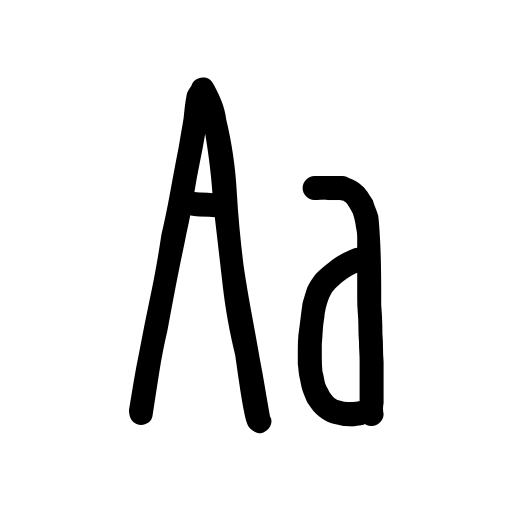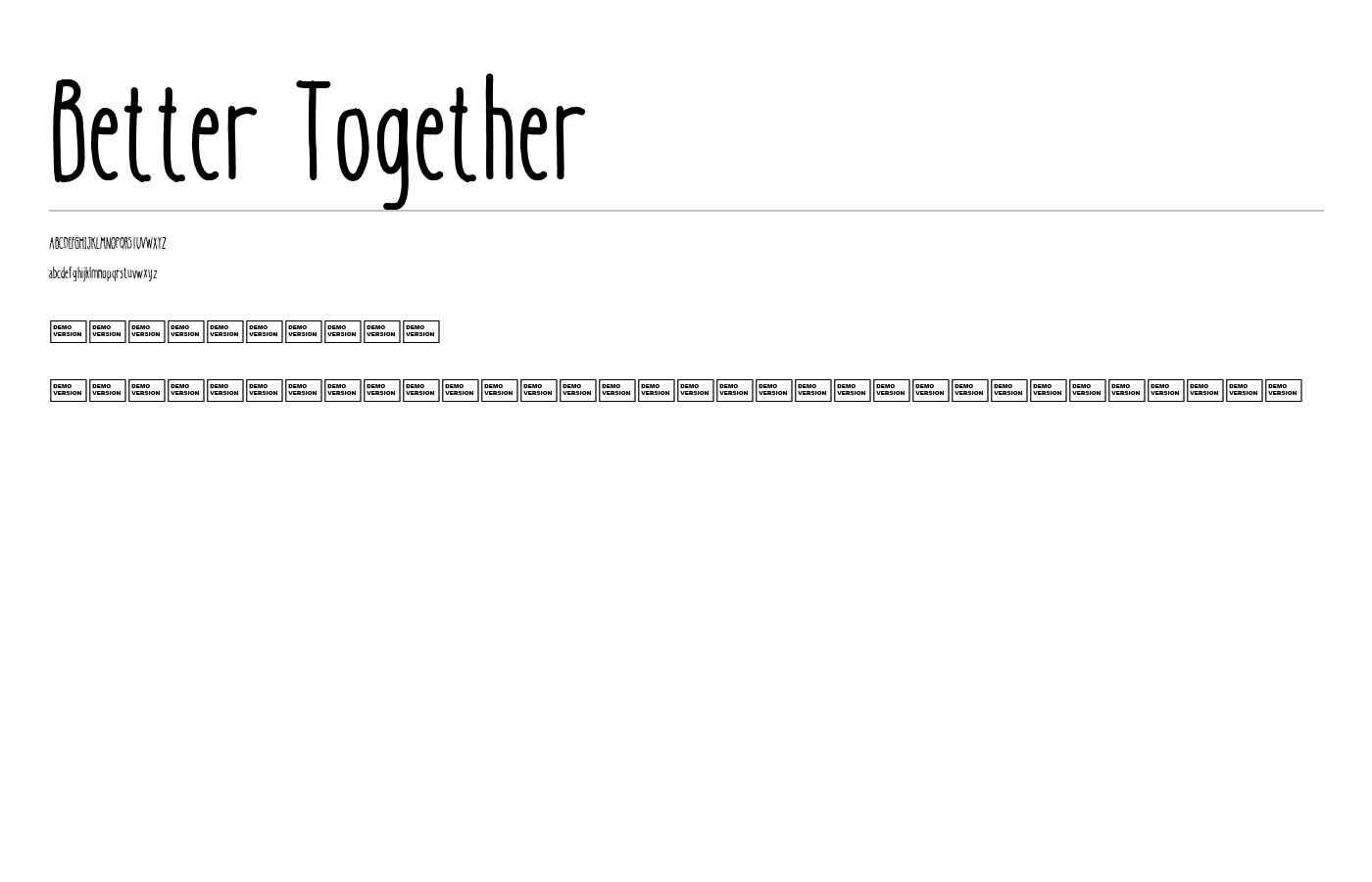
Better Together is a narrow, tall sans serif font with a casual, hand-drawn feel that adds warmth and personality to any design. Its uneven strokes and relaxed letterforms make it perfect for creative projects, invitations, and playful branding where a friendly, approachable tone is desired. This font works best in headlines and short texts that aim to convey a sense of connection and individuality.
Better Together Font
About Better Together Font